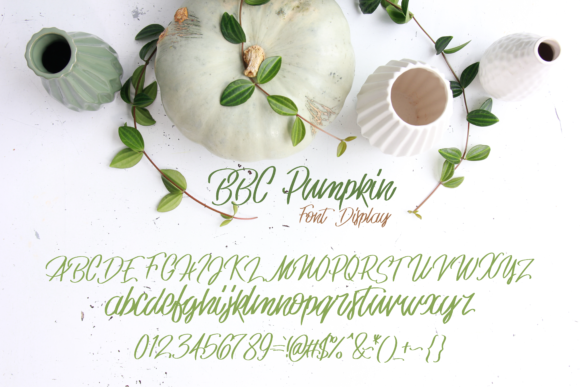
HomeScript FontsBBC Pumpkin Font Script Fonts BBC Pumpkin Font FacebookXPinterestWhatsApp BBC Pumpkin Font Poster 2 About BBC Pumpkin Font BBC Pumpkin is a warm and cozy font with an authentic twist. Get inspired by its bold vibe! DOWNLOAD ON CREATIVE FABRICAThis font is sold and delivered by Creative Fabrica. Font Canyon may earn a commission if you buy through this link. People also explored Alarm Clock Font Berry Bella Canvas 3001 T Shirt Mockup Poppy Font Angeline Children Font Cousin Beth Gippsland Font Hey Candy Font Antam Script Font Nattalie Font 367 0 TagsBBC Pumpkin Font Previous articleArthein FontNext articleShabila Font LEAVE A REPLY Cancel reply Comment: Please enter your comment! Name:* Please enter your name here Email:* You have entered an incorrect email address! Please enter your email address here Website: Save my name, email, and website in this browser for the next time I comment. Personal Use Free Spring Personal Use Free Read more about this font Open Store Personal Use Free Read more about this font Monogram Calligraphy Personal Use Free Read more about this font Denisha Personal Use Free Read more about this font BLOG Top 10 Handwritten Fonts That Elevate Your Designs Top 10 Handwritten Fonts That Will Elevate Your Designs Handwritten fonts bring a warm, personal touch to every creative project. Whether you're designing logos, invitations,... Top 7 Google Fonts Alternatives for Faster and Privacy-Friendly Web Design (2025) Fonts That Capture the Spirit of New York City Free Fonts Risk: Why Free Fonts Can Be Dangerous for Designers